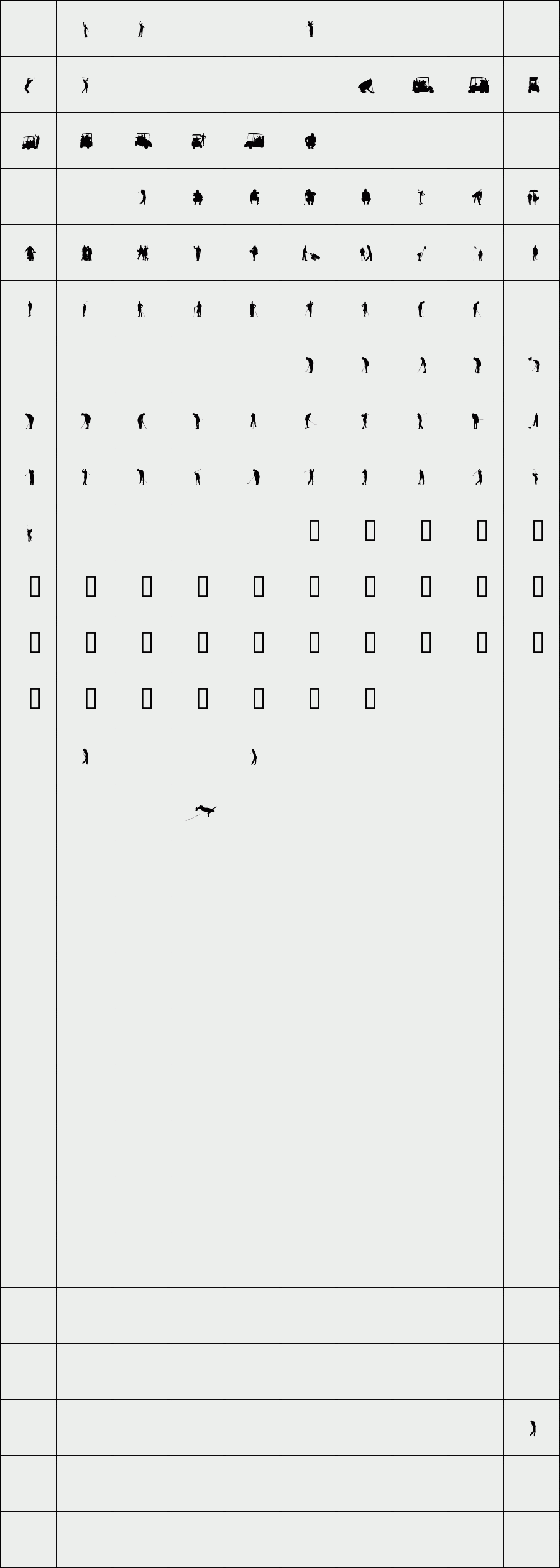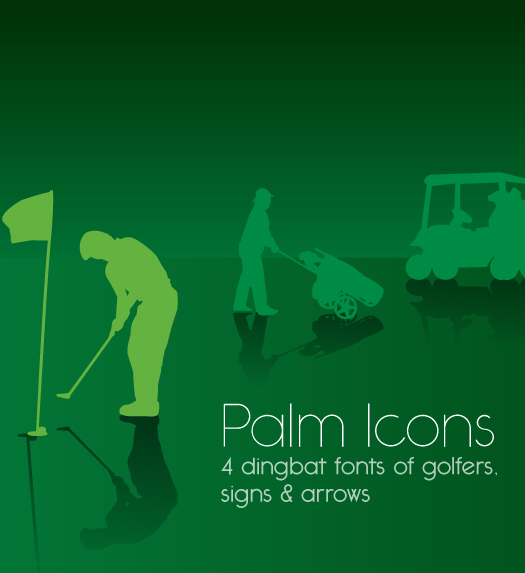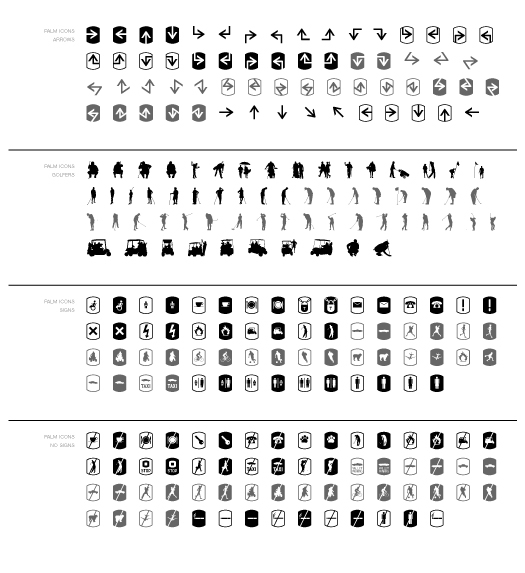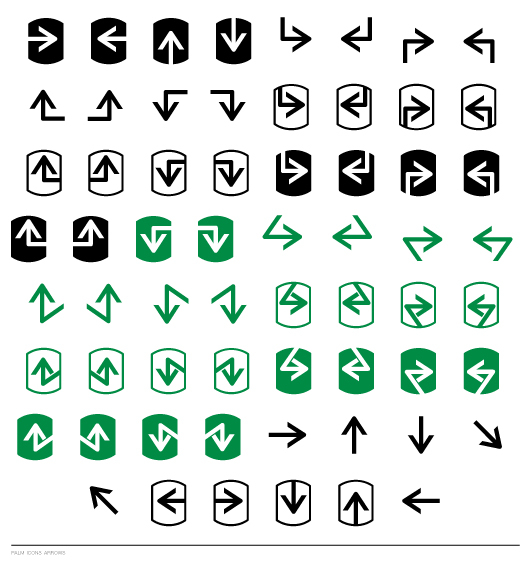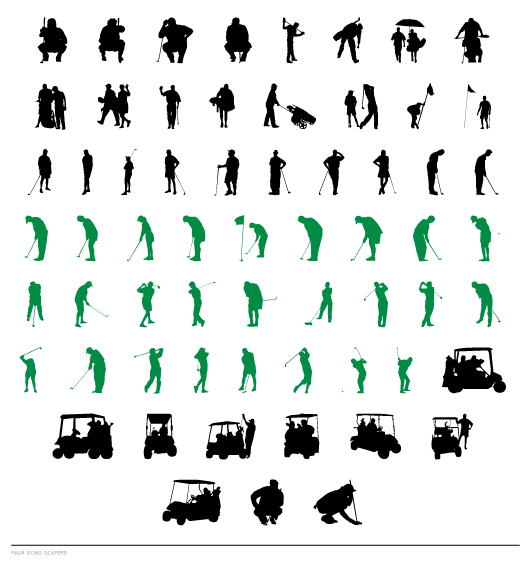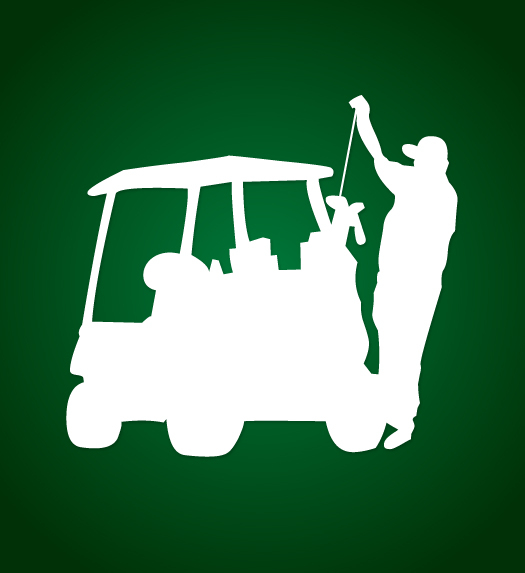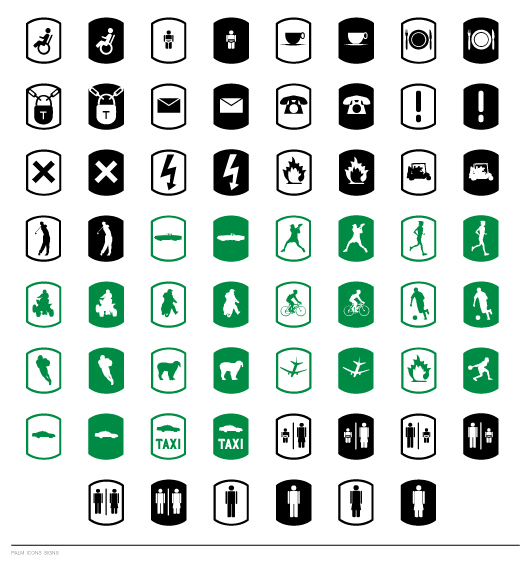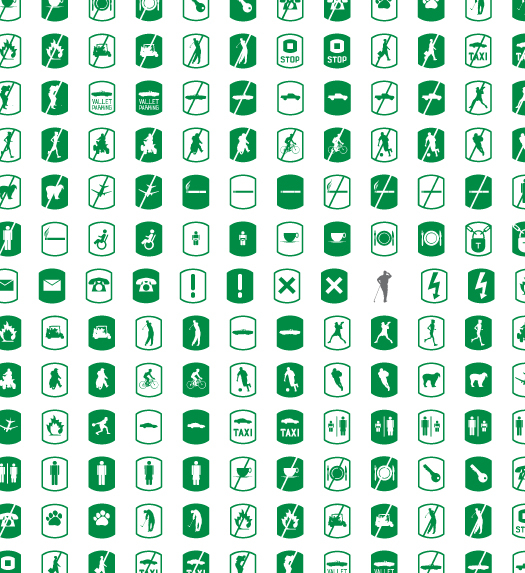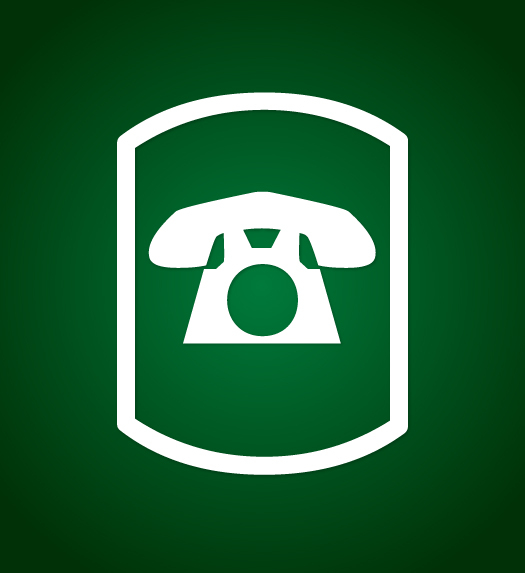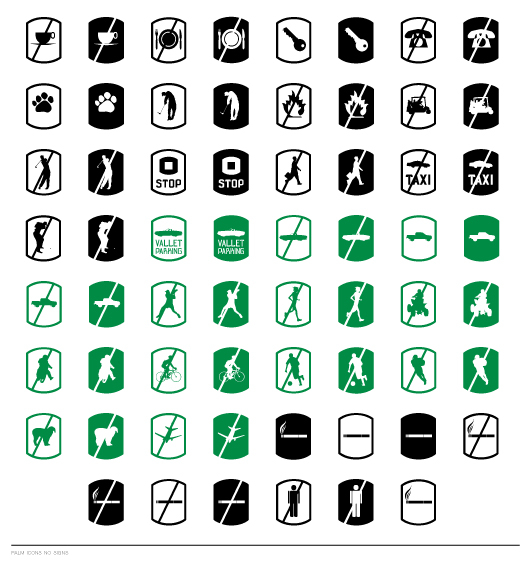
Palm Icons
/ Palm Icons golfers
A fun dingbat font with symbols of golfers, navigation signs and arrows. Each font contains 62 glyphs and is ready to use for your next golfing campaign!